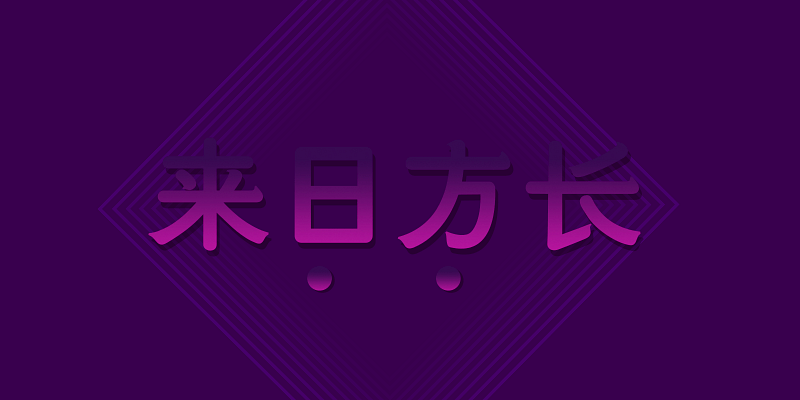
HelloFont ID Yi Yuan Font Free Download is an elegant and versatile Chinese-inspired typeface that combines traditional influences with a clean, modern design. The font features smooth, well-balanced strokes, making it suitable for a wide range of design projects including branding, editorial design, signage, and packaging. Its timeless beauty makes it an ideal choice for designs that require both sophistication and readability.
The HelloFont ID Yi Yuan Font is perfect for creating high-end branding, invitations, cultural event materials, and digital designs. Its balanced structure and graceful flow ensure that it works well in both large and small sizes, offering clarity and style across various applications.